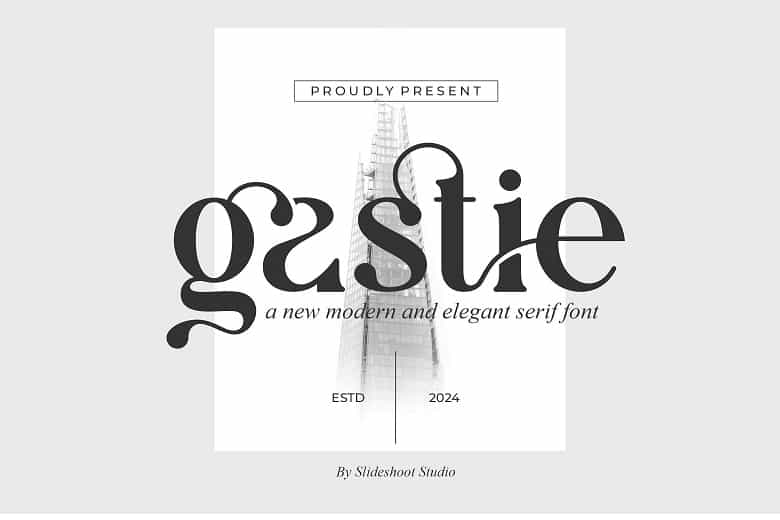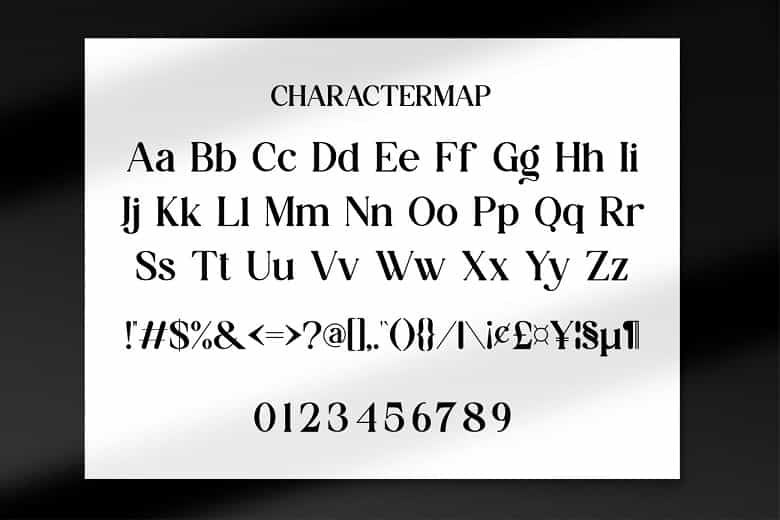
Gastie is a new and elegant serif typeface suitable for all kinds of branding and logo purposes. This elegant serif font is a perfect font for the modern world. This font is applicable for invitation card design, logos, movie title, movie name, business cards, book title, brand name and other designs.